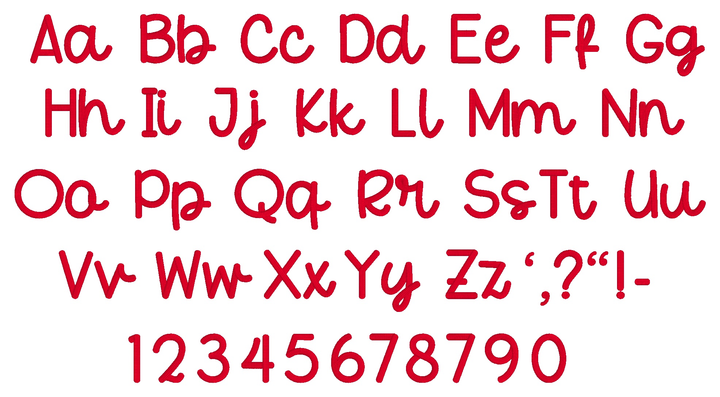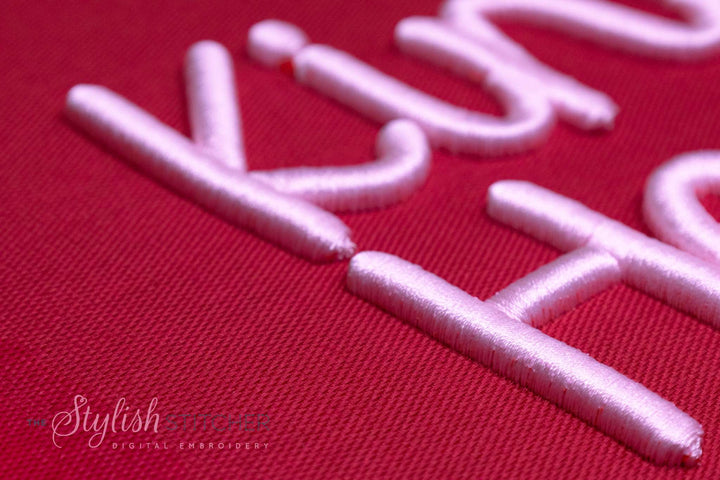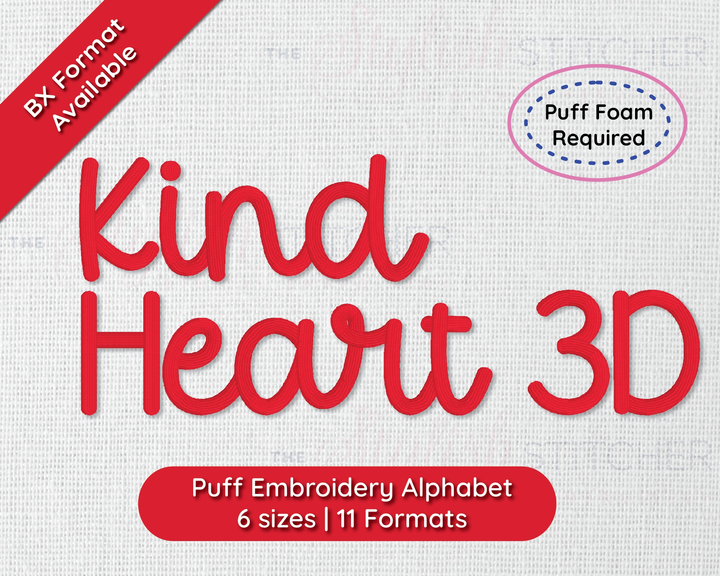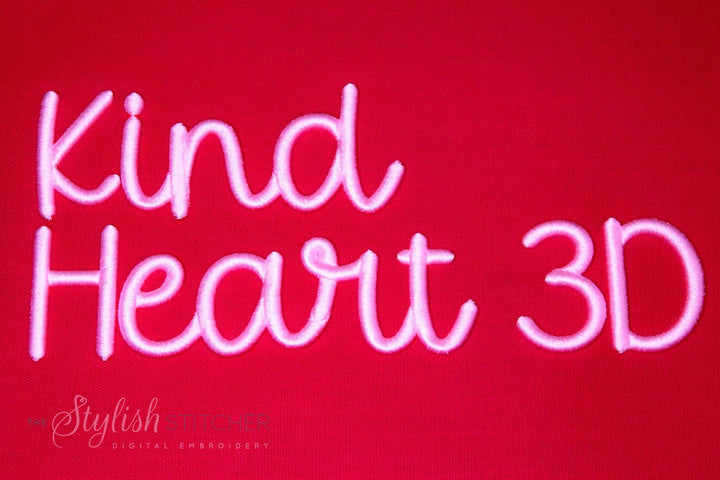
Kind Heart 3D Puff Digital Embroidery Font
Add a touch of warmth and personality to your embroidery projects with our Kind Heart 3D Font. This charming and bold font features a delightful puff effect, giving your designs a unique, raised look that stands out. Perfect for creating eye-catching monograms, quotes, and decorative elements, Kind Heart 3D brings a cozy and heartfelt feel to any project.
Kind Heart 3D Puff Digital Embroidery Font Specs:
Included: Uppercase Letters, Lowercase Letters, 6 Punctuation, Numbers
Stitch Type: Satin Stitch for 3D Puff